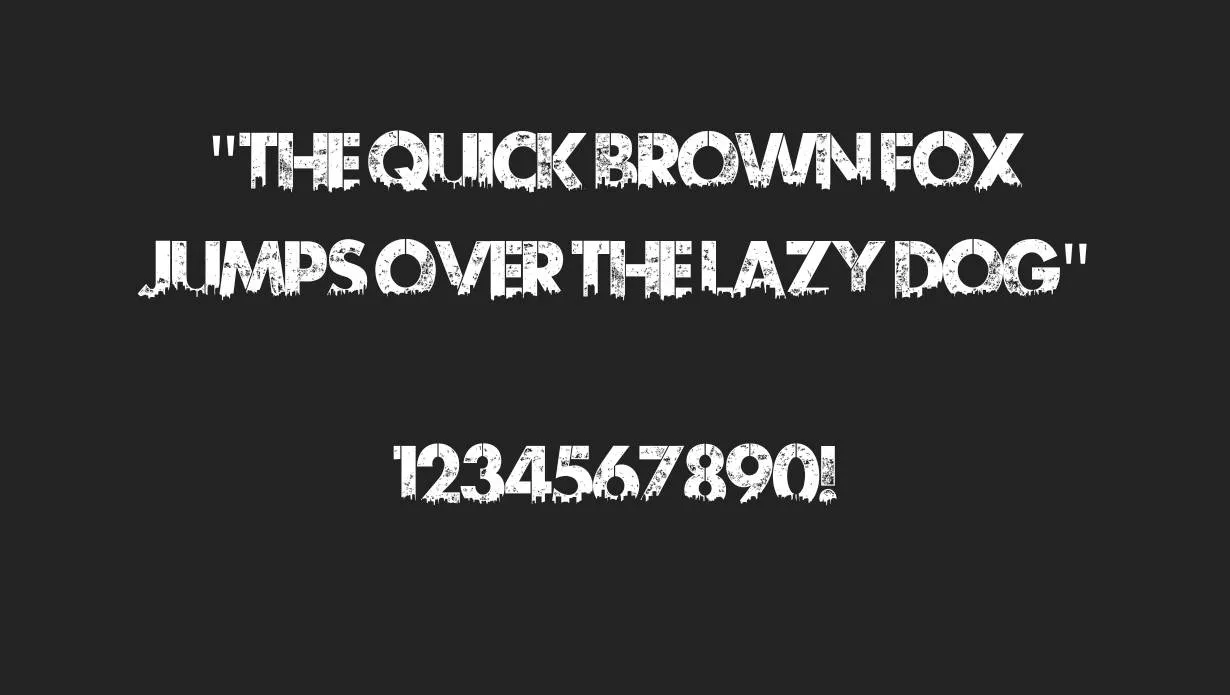
The Free Fire font brings a bold and dynamic flair to your text. It’s like the text version of a blazing fire, commanding attention with its strong and distinctive characters.
Perfect for adding a touch of excitement to headlines or creating eye-catching posters, the Free Fire font is full of energy and personality. Let your words ignite with the intensity and vibrancy that the Free Fire font brings to the table.
| Name | Free Fire Font |
| Designer | KC Fonts |